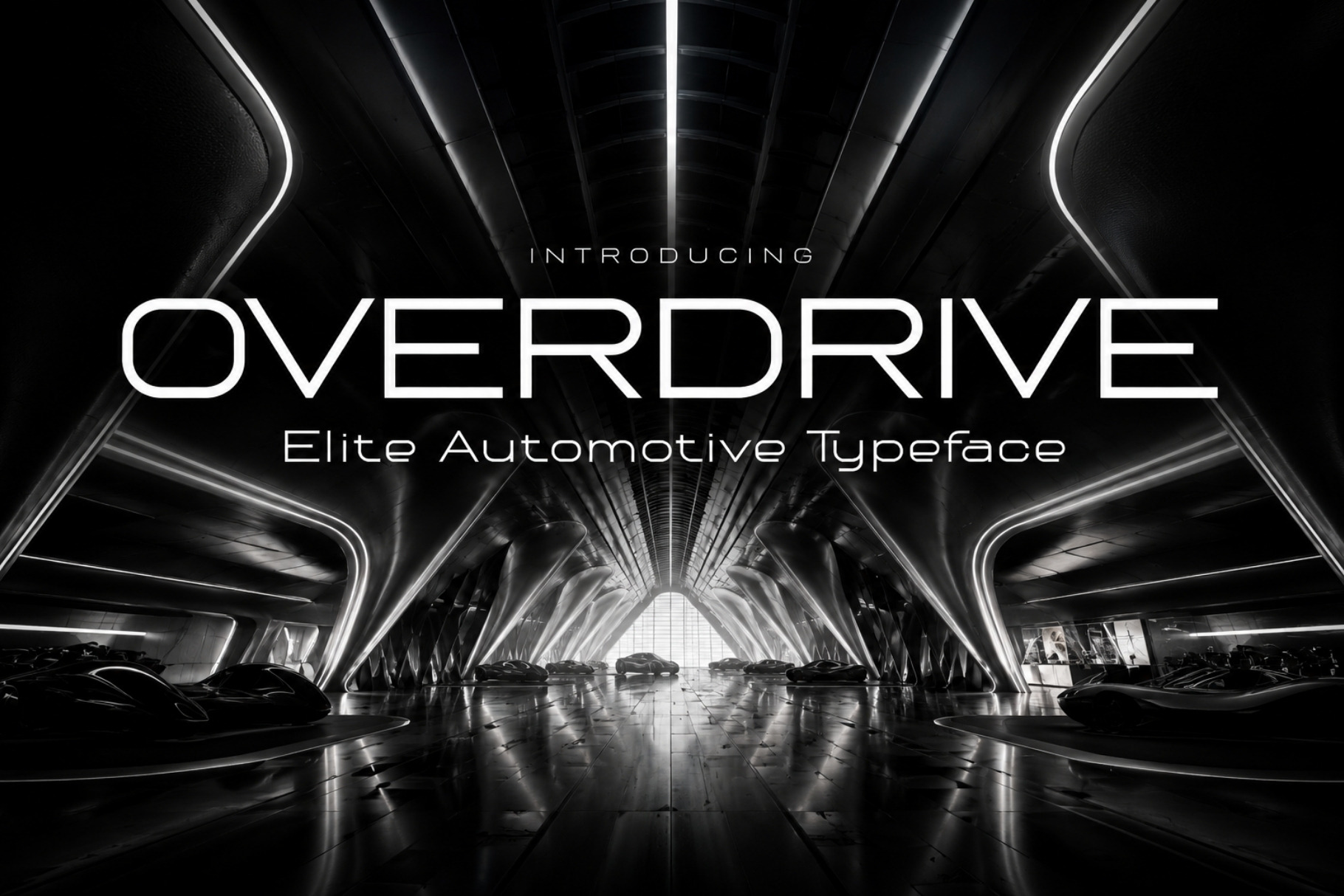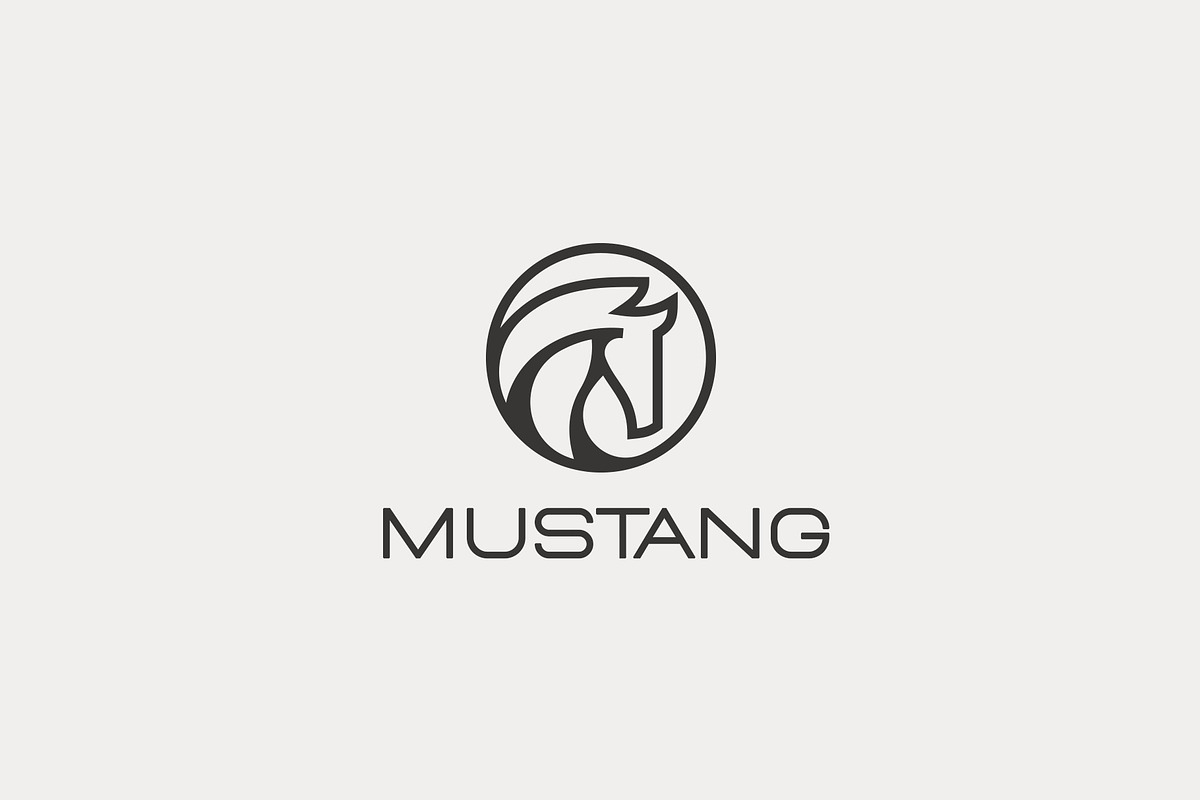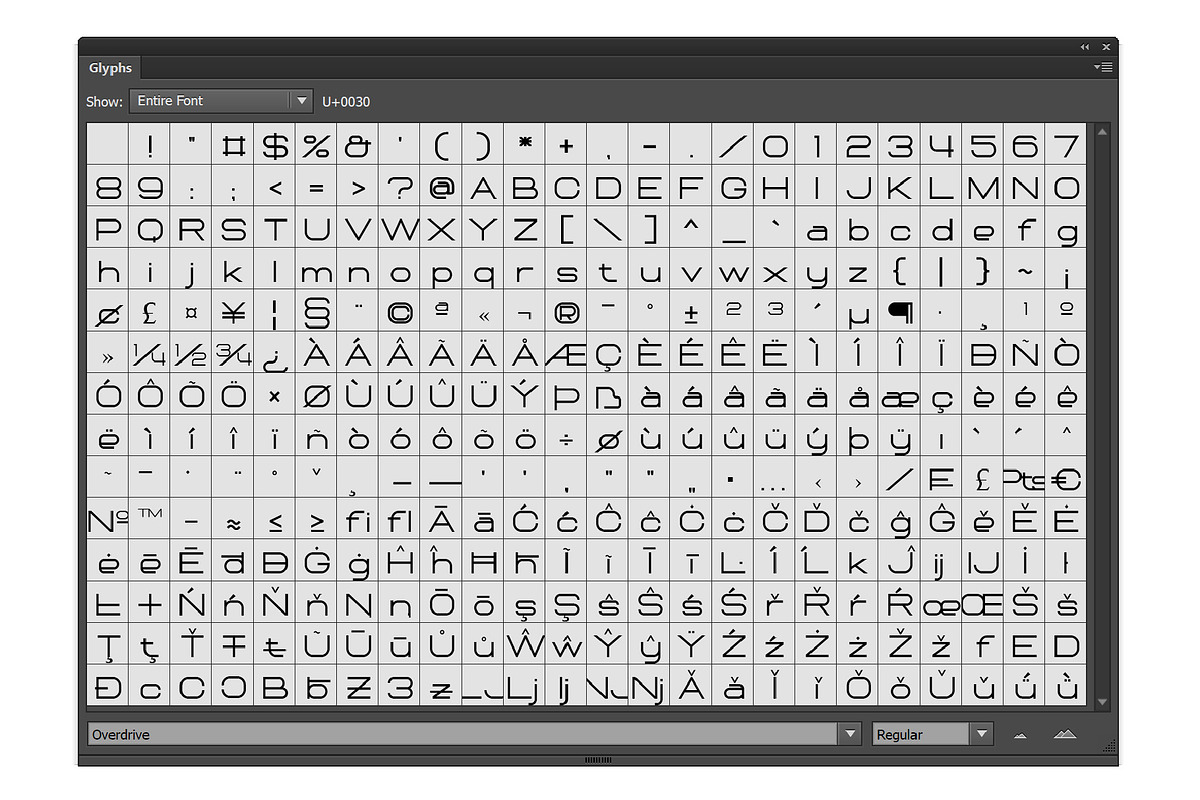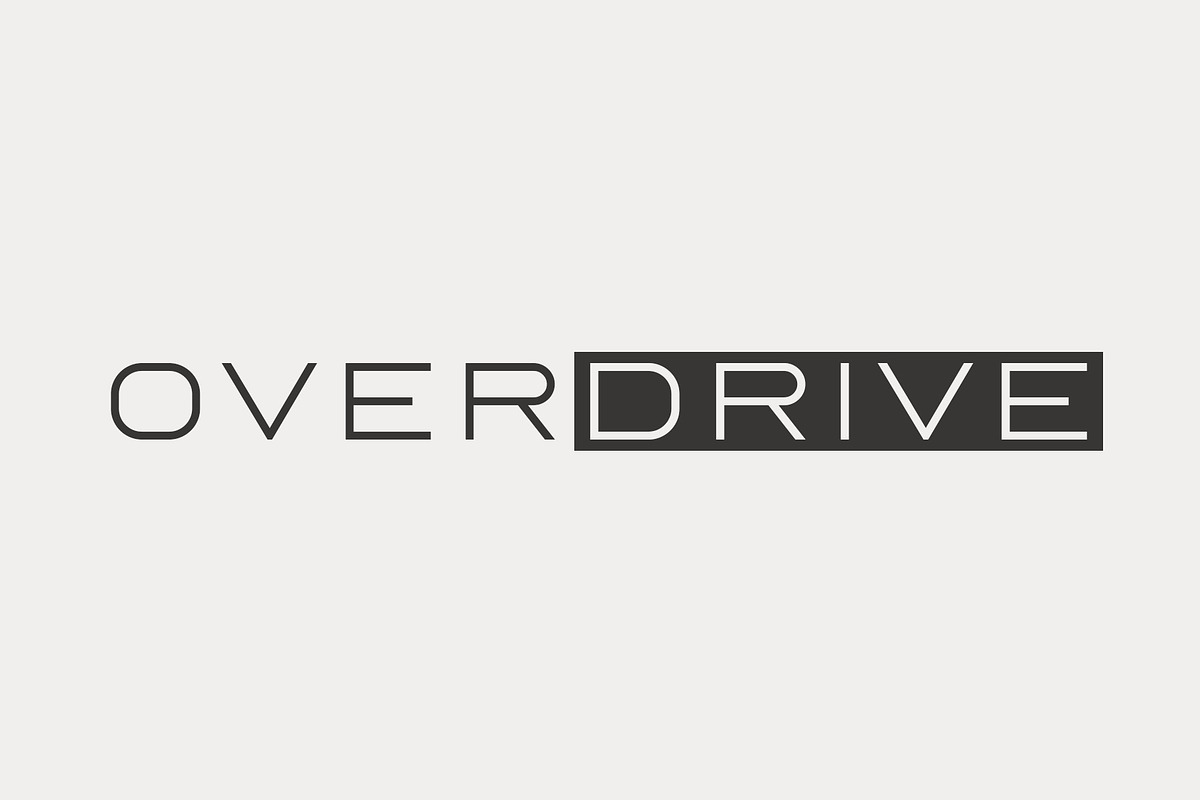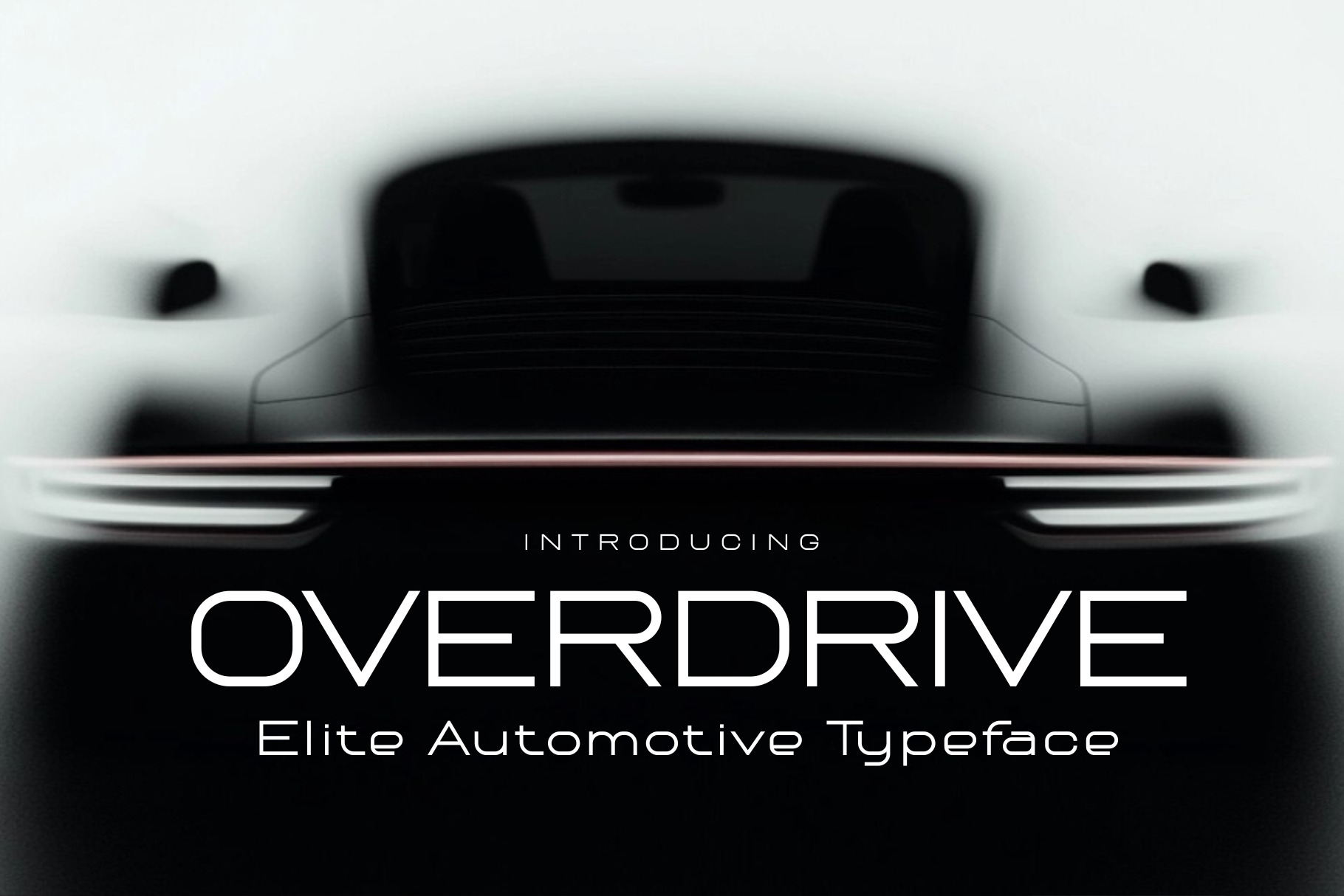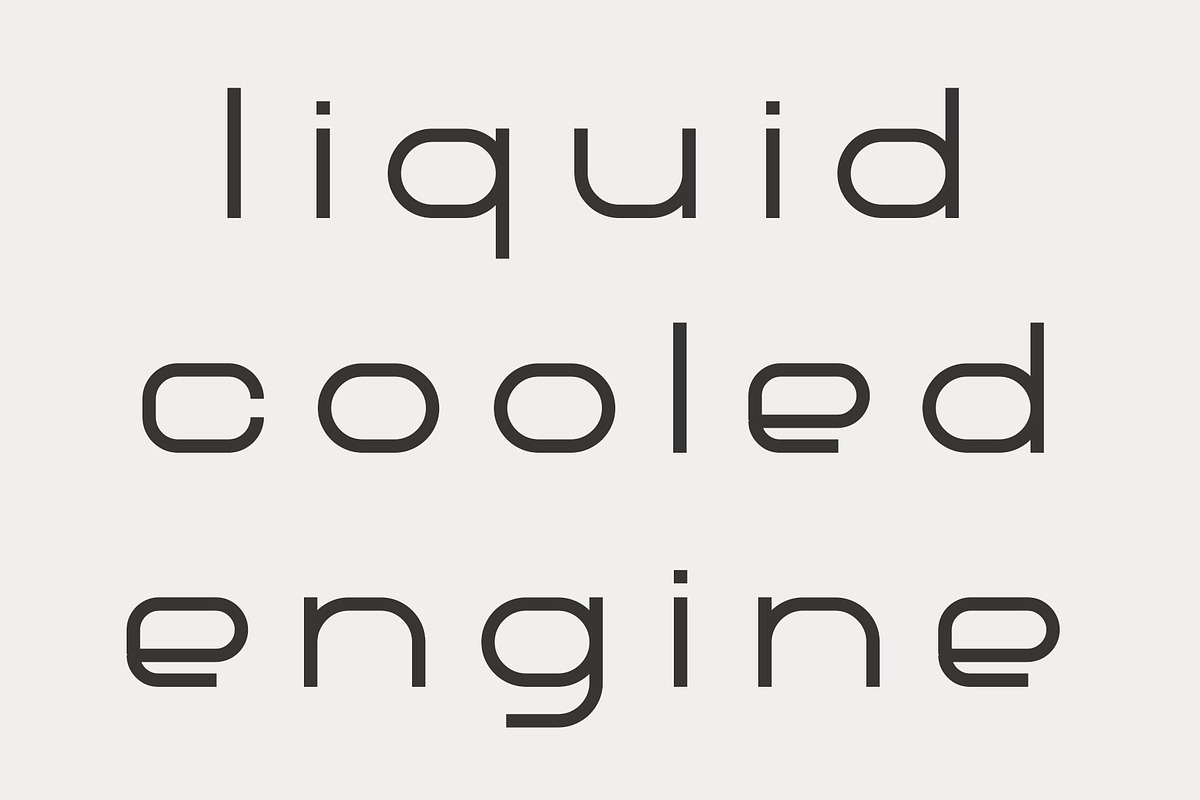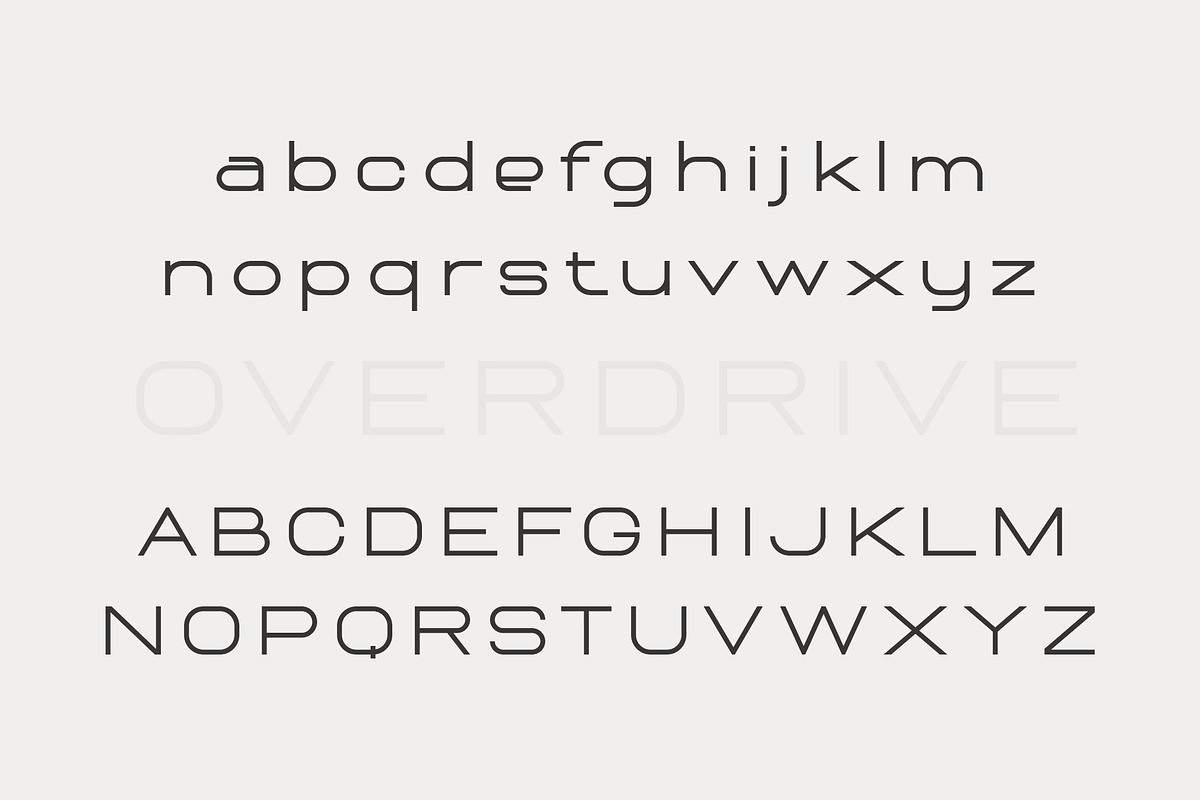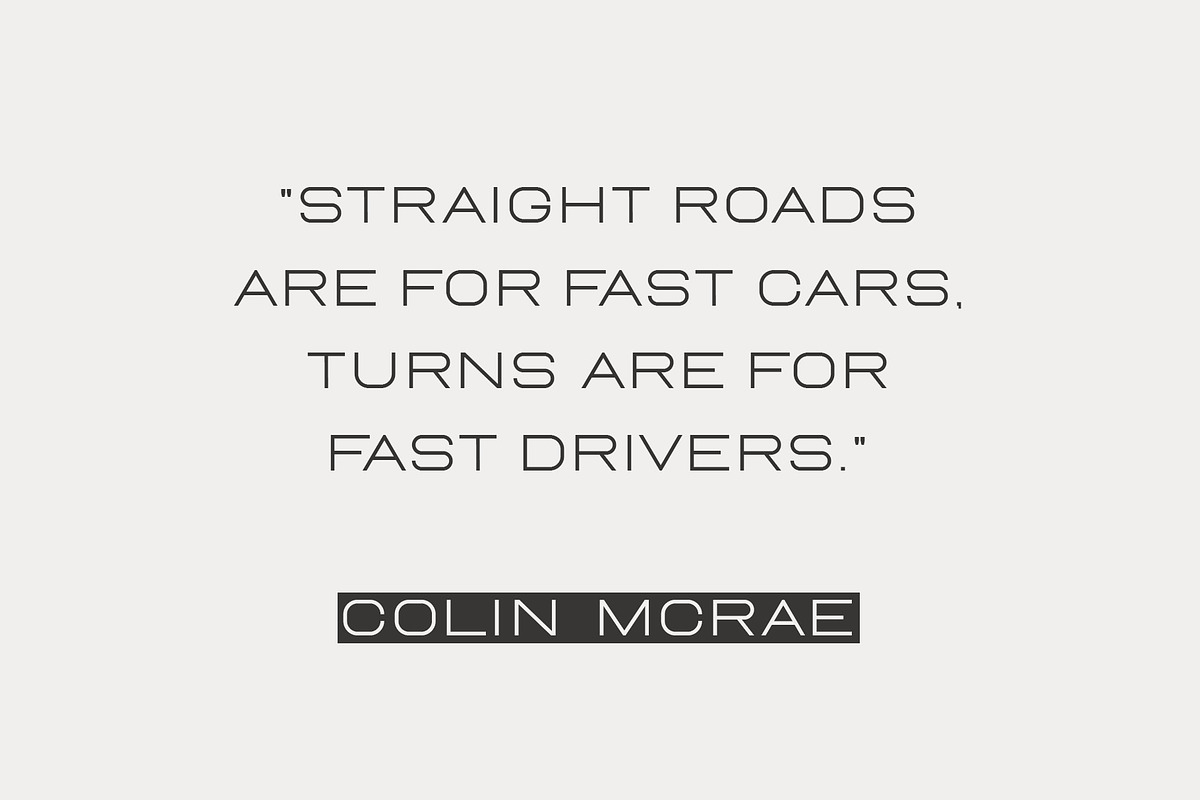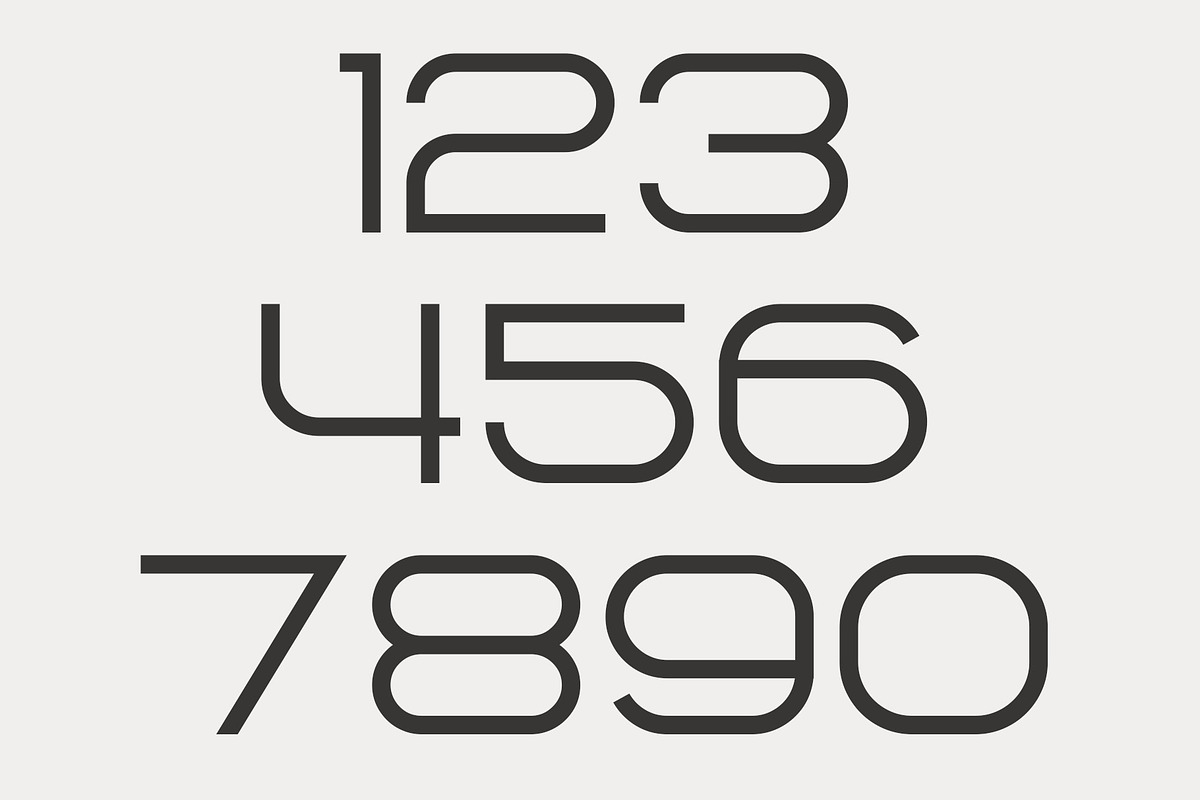
Overdrive - Elite Automotive Font
Overdrive is a wide, precision-engineered display typeface that captures the effortless elegance of Italian automotive design — the long hoods, the sculpted curves, the obsessive attention to detail that turns a machine into a work of art. Every letterform is built with the same philosophy: performance and beauty are not a compromise, they're the same thing.
Designed for designers who think in terms of impact, Overdrive excels wherever sophistication and edge need to coexist — logotypes, editorial headlines, high-stakes advertising campaigns, and presentations where the first impression is the only one that matters. Its wide, commanding proportions give it an unmistakable presence on the page that's impossible to overlook.
For brands and creatives operating at the intersection of luxury and adrenaline, Overdrive is the typeface that understands the assignment — refined enough for the showroom floor, bold enough for the open road.